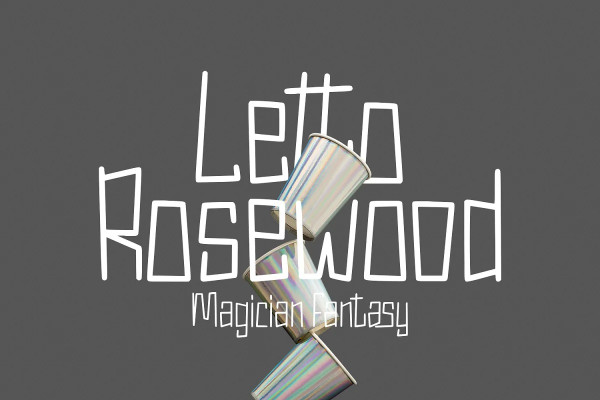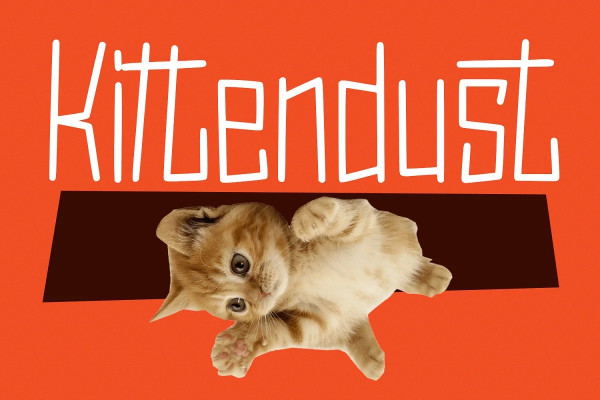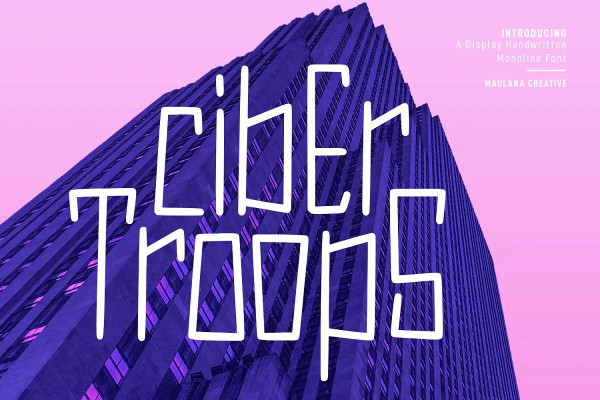
Cybertroops Font
Cybertroops Font is a square letterform concept as mono handwritten display font. With light mono-line stroke, fun character with a bit of ligatures. To give you an extra creative work. Cybertroops font support multilingual more than 100+ language. This font is good for logo design, Social media, Movie Titles, Books Titles, a short text even a long text letter and good for your secondary text font with sans or serif. Make a stunning work with Cybertroops font.